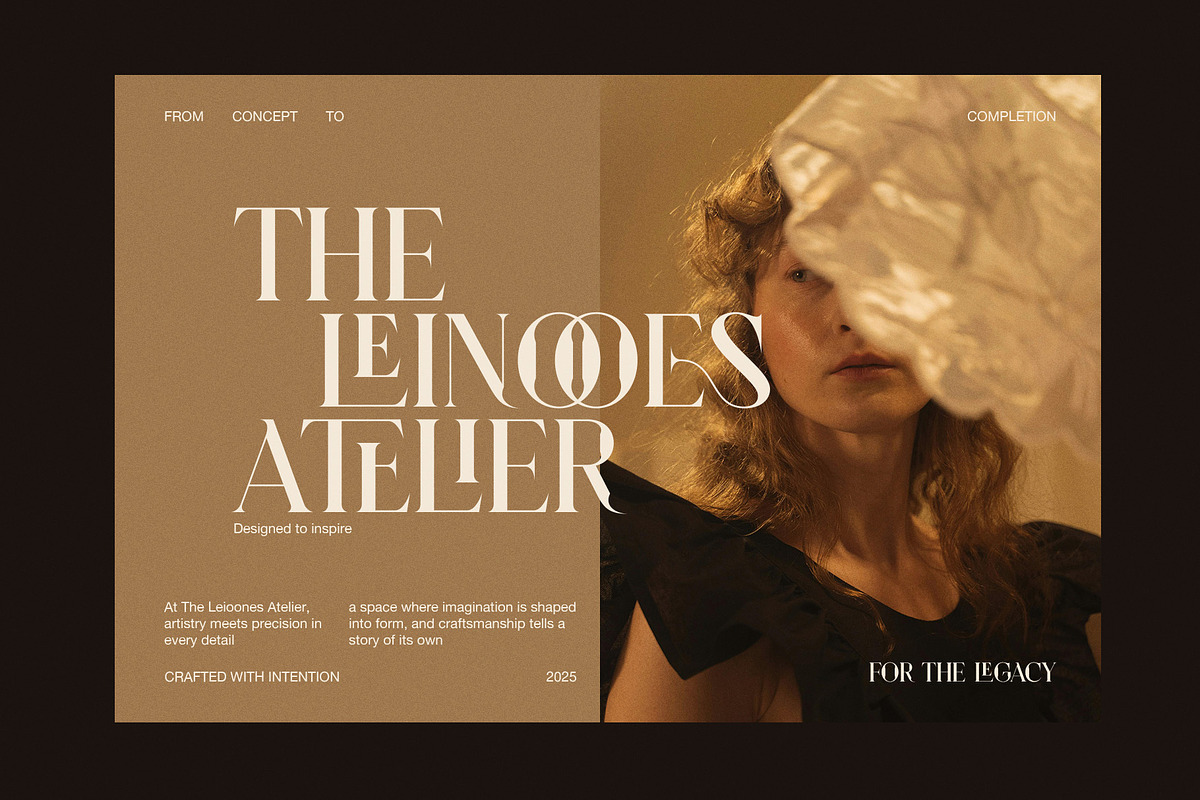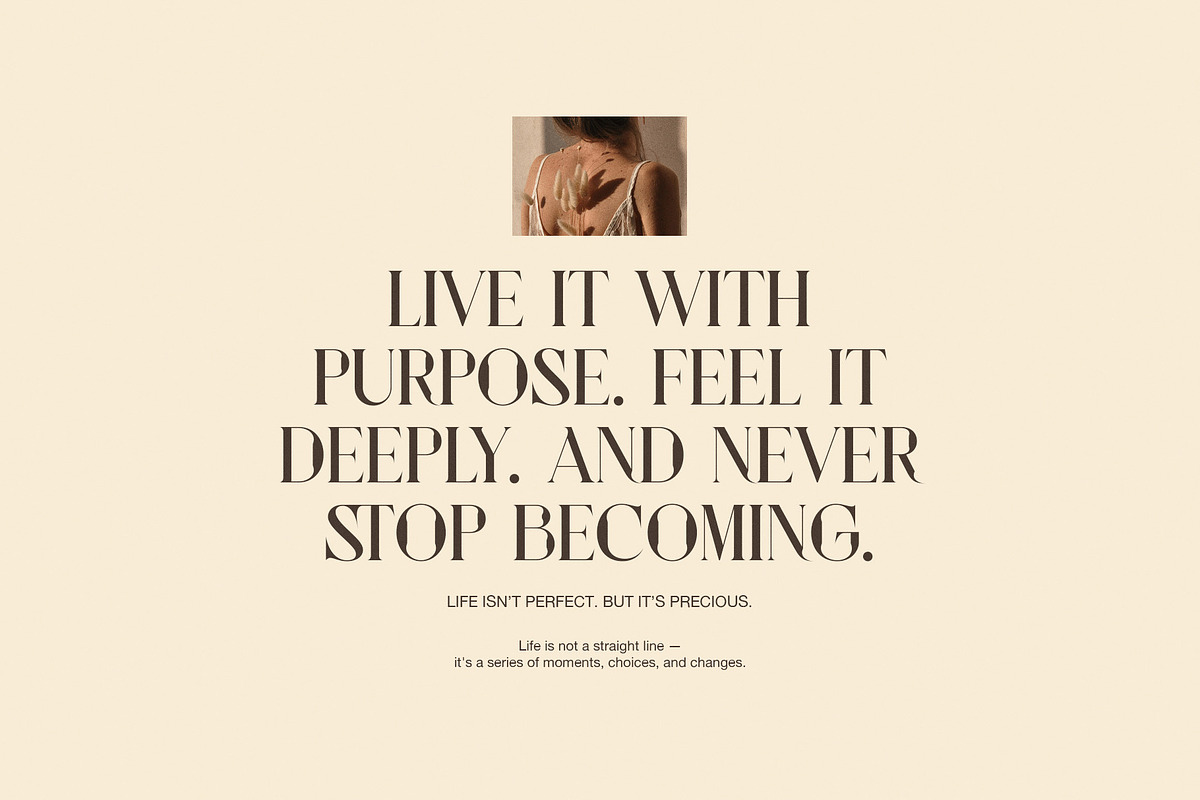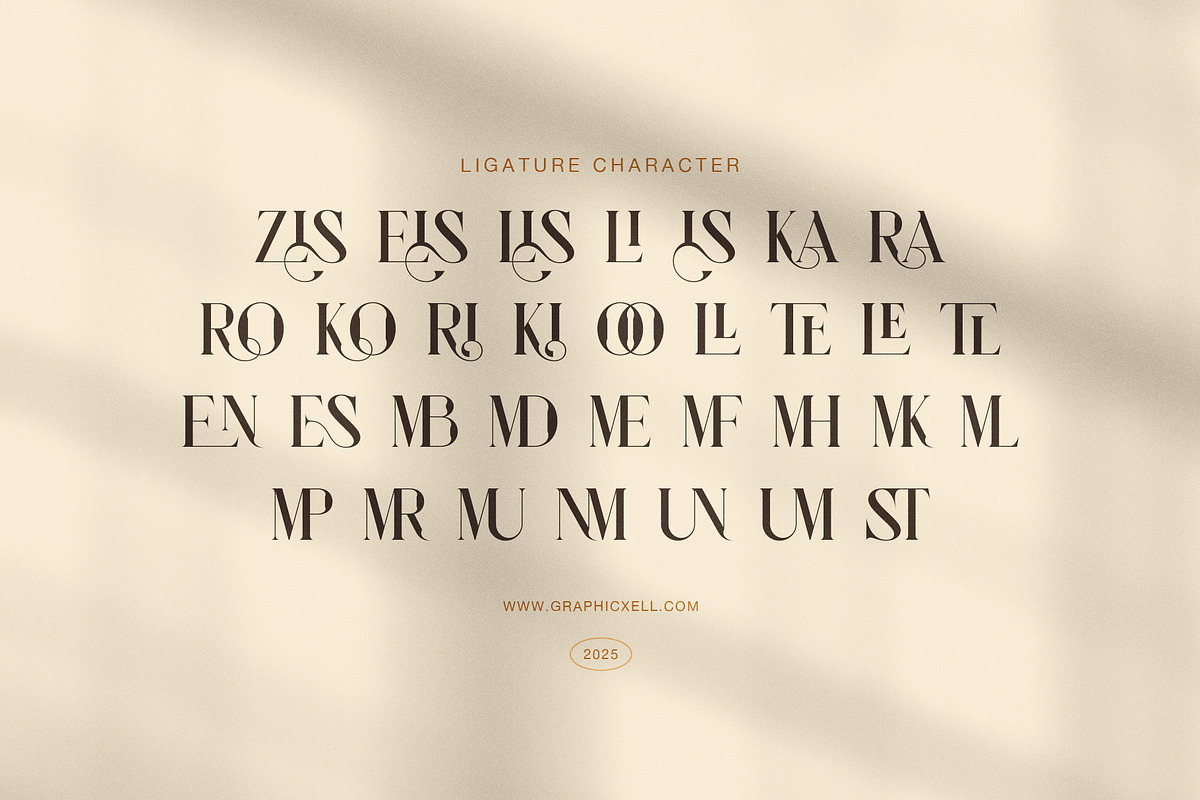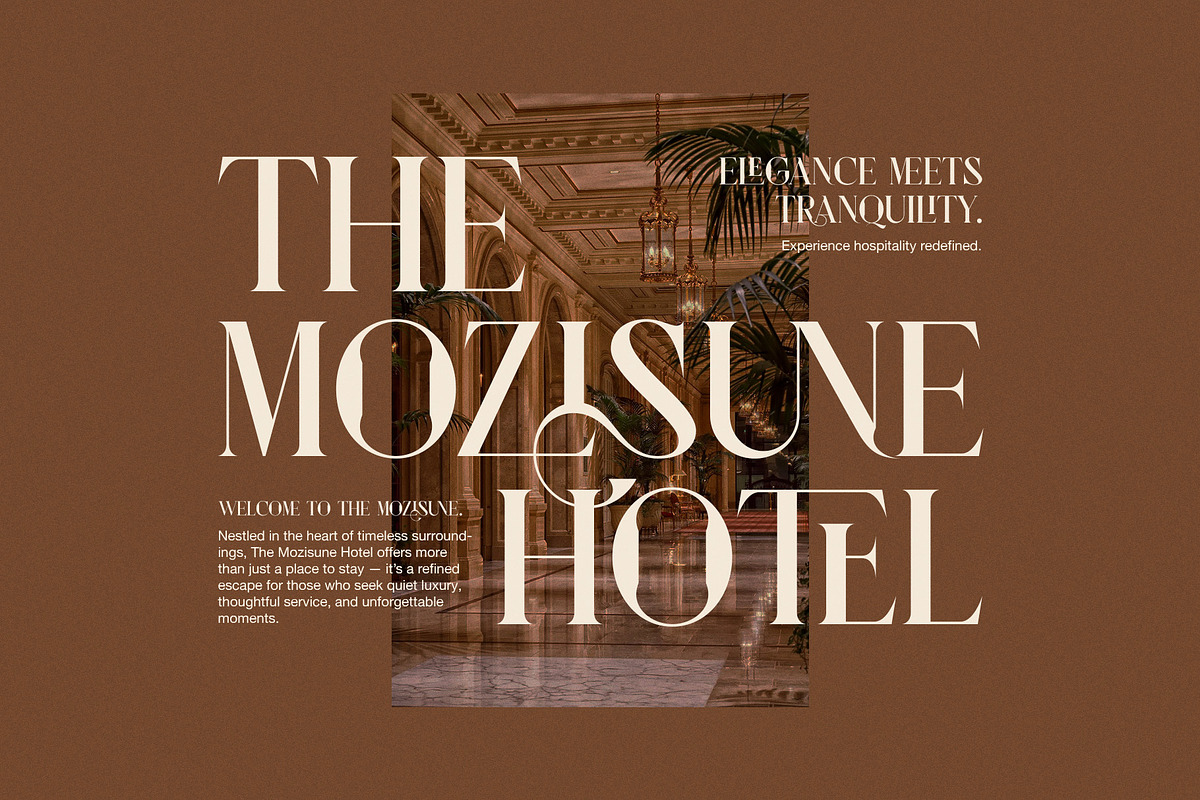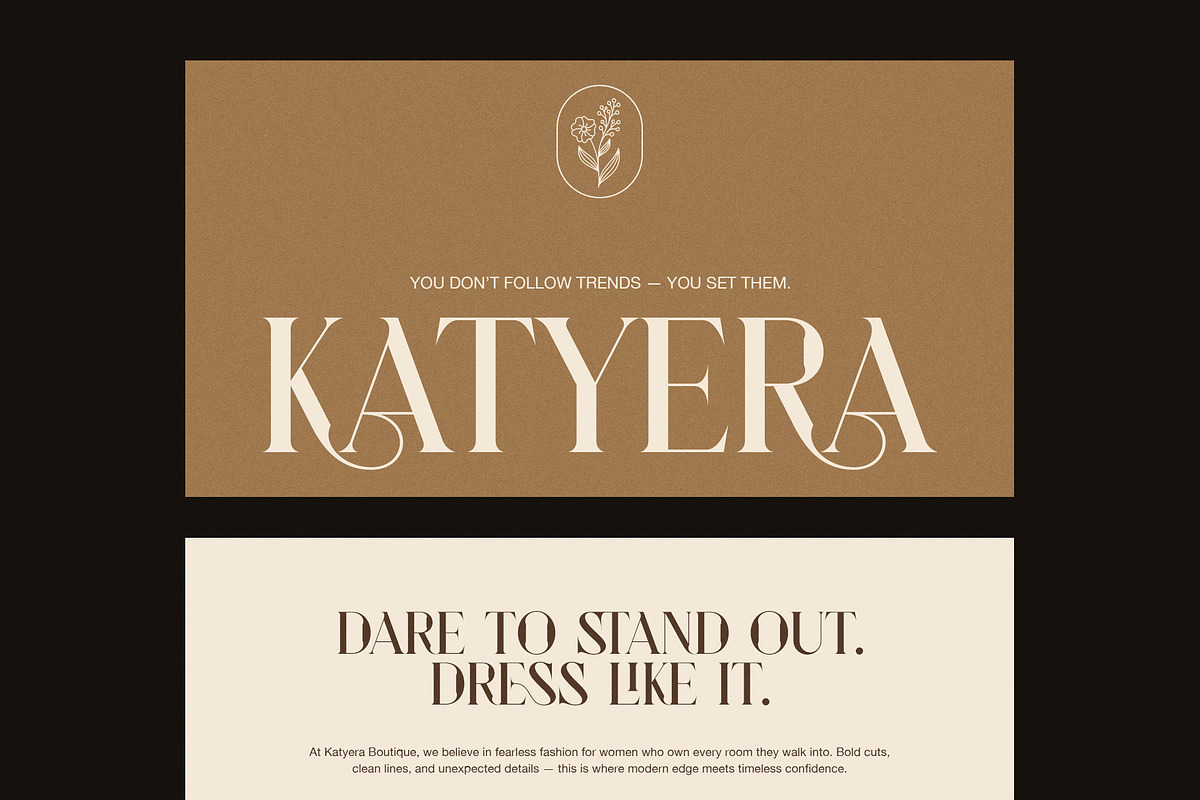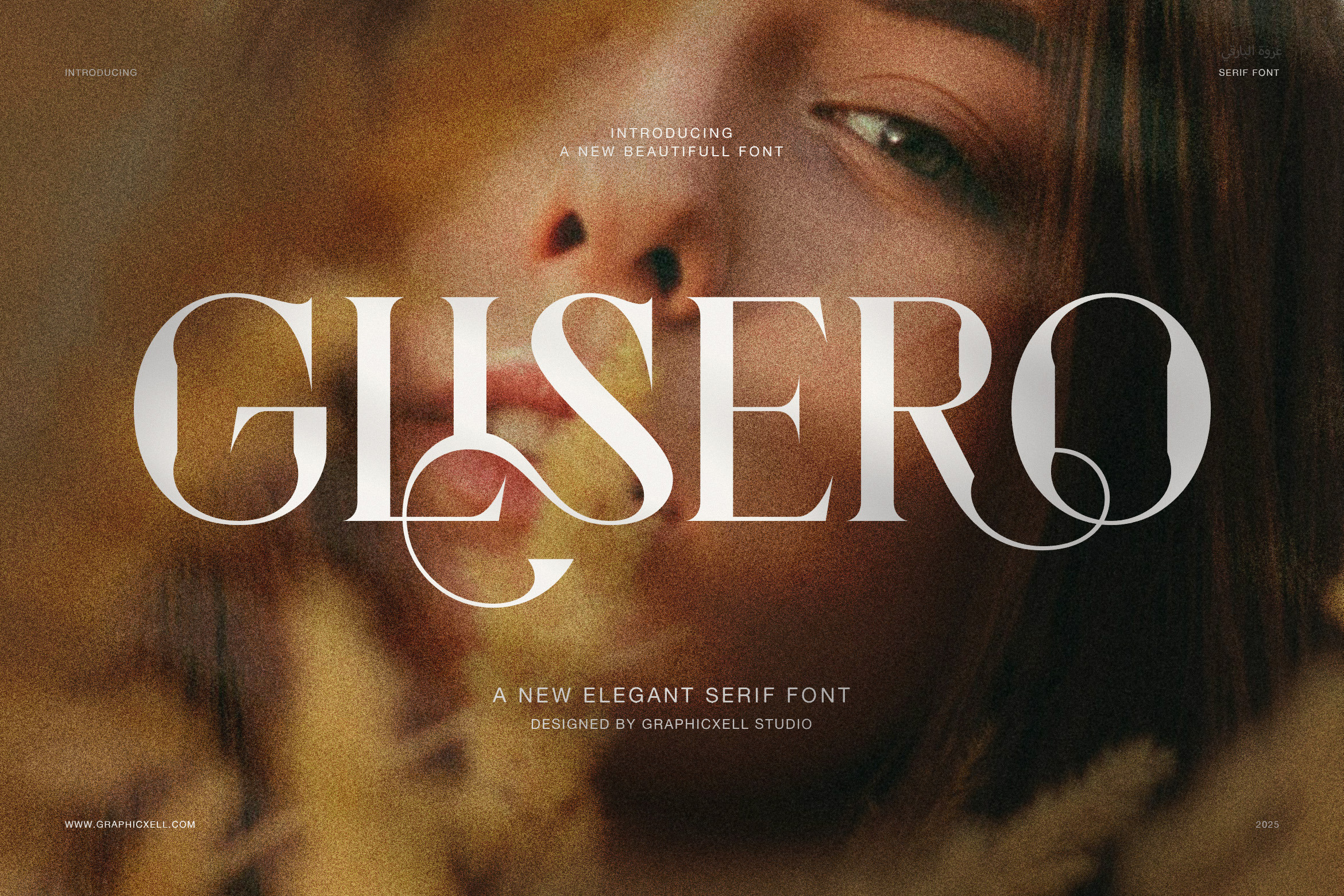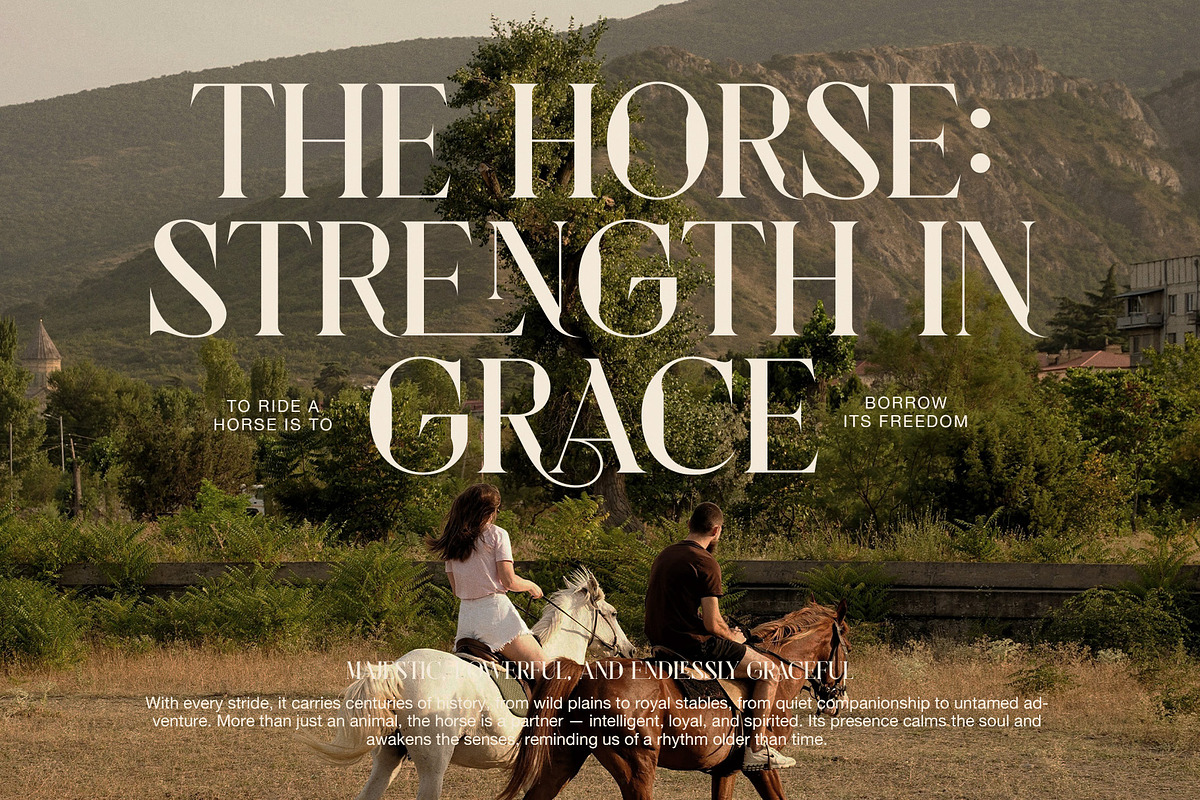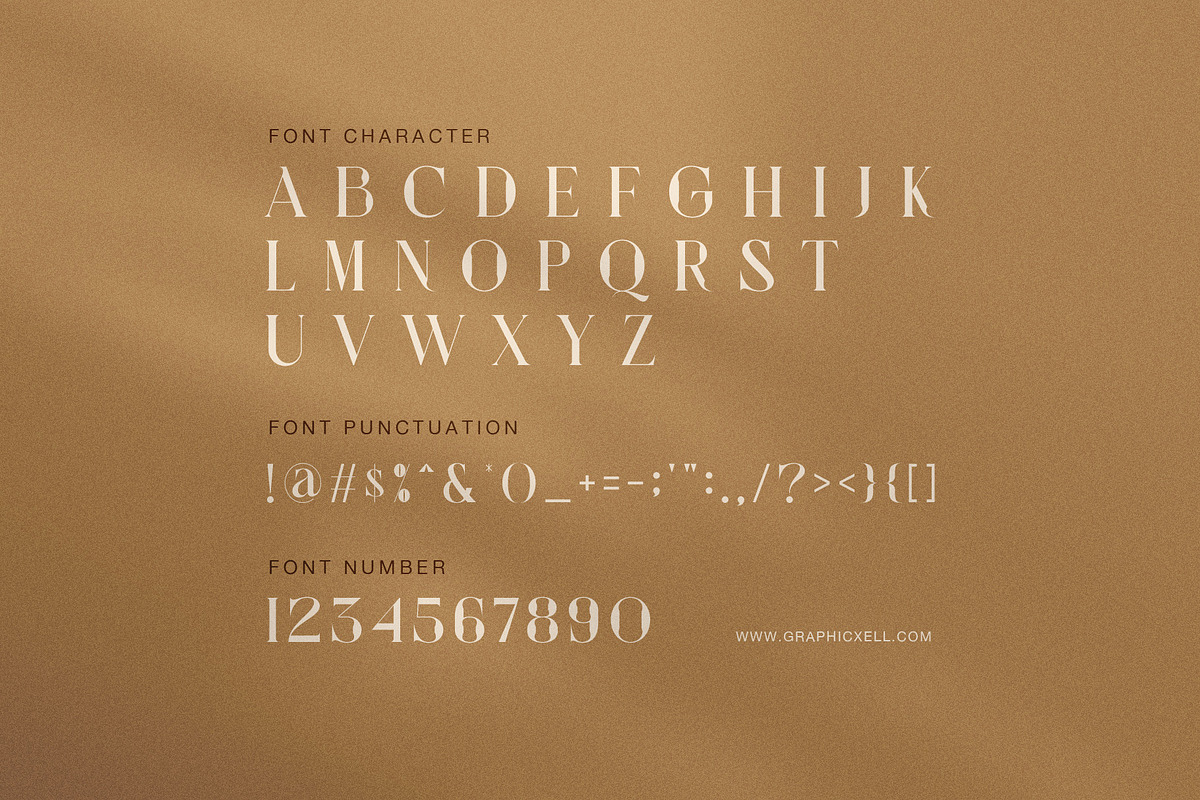
Glisero Elegant Serif Font
Meet Glisero Elegant Serif Font, a refined typeface created for designers who value luxury and timeless beauty. Its balanced serifs, graceful curves, and smooth contrast give every project a sophisticated finish.
This font blends modern style with classic charm. Because of its elegant structure, it adds clarity and warmth to both print and digital work. Whether you design logos, magazines, or invitations, Glisero helps your text feel polished and distinctive.
Main reasons to choose Glisero:
Elegant serifs that enhance branding and editorial design
Excellent readability across all screen and print sizes
Perfect for fashion, luxury packaging, and creative layouts
Pairs easily with sans-serif fonts for contrast and balance
Each letter was drawn with care, offering refined proportions and confident details. The subtle contrasts highlight sophistication without sacrificing legibility. Moreover, the open counters and consistent spacing make every line flow naturally.
You can use Glisero for a wide range of projects. It works beautifully for high-end branding, editorial covers, elegant invitations, and minimal logos. Because it supports multiple languages and a full character set, you can apply it globally with ease.
In addition, Glisero brings professionalism and style together. It helps your message look trustworthy while keeping a soft, human tone. Designers who want a mix of modern edge and classic grace will find it an ideal choice.
In short, Glisero Elegant Serif Font gives your work elegance, confidence, and clarity. It transforms simple text into refined design. Use it to express premium quality and timeless creativity in every project.